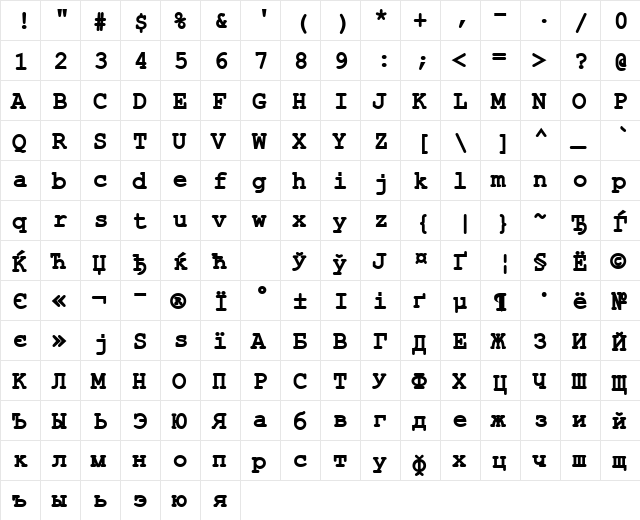
ER Kurier 1251 Bold
Design Context for ER Kurier 1251 Typeface
ER Kurier 1251 is a composed and adaptable typeface that performs quietly and consistently across a wide range of design contexts. The heavy weight commands attention and anchors typographic hierarchies.